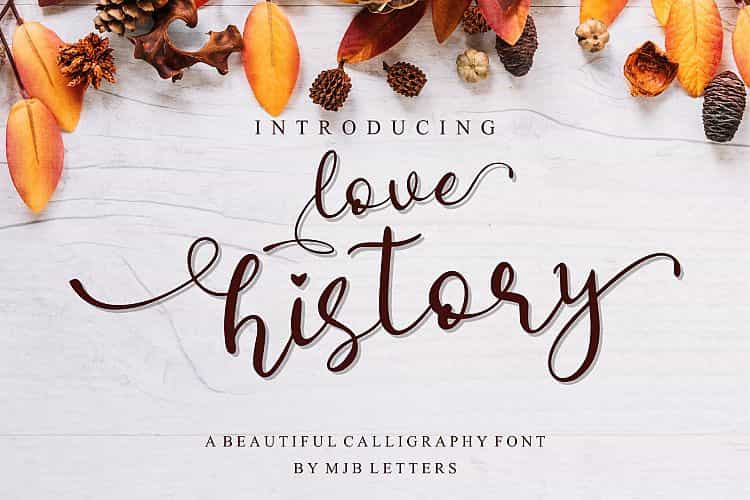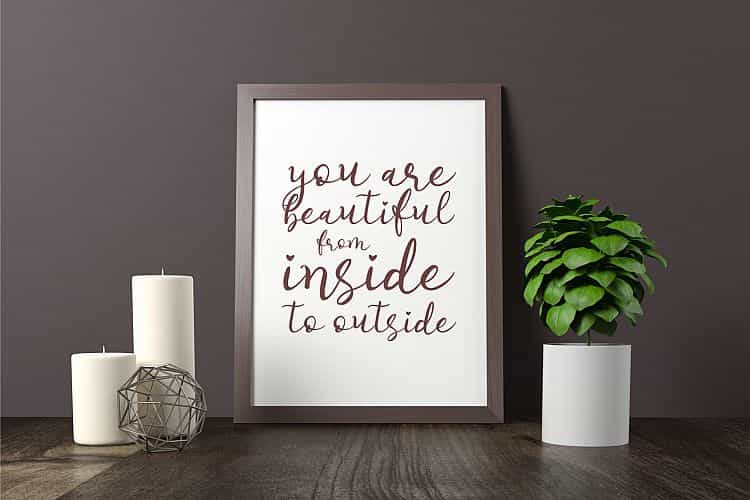
Discover Love History Script Font, part of the Calligraphy collection—a versatile and unique font perfect for adding a personal touch to your projects. Download it for free and enjoy crafting designs with style, from invitations to social media posts. This font is available exclusively for personal use, giving you the freedom to create without limits. Unlock your creativity with Love History Script Font today!
This font is designed so carefully that it can give a hand touch and a natural impression in a design. It is very suitable for invitations, logos, brochures, business cards, photography, and for other design needs.